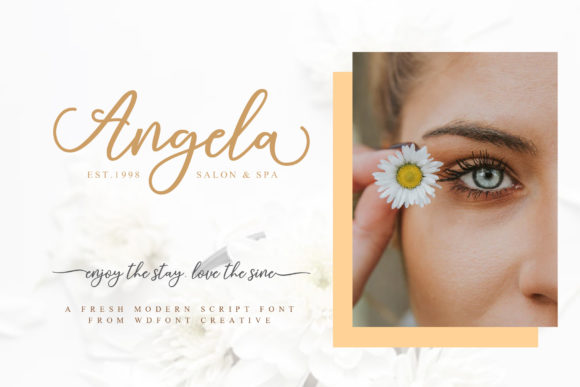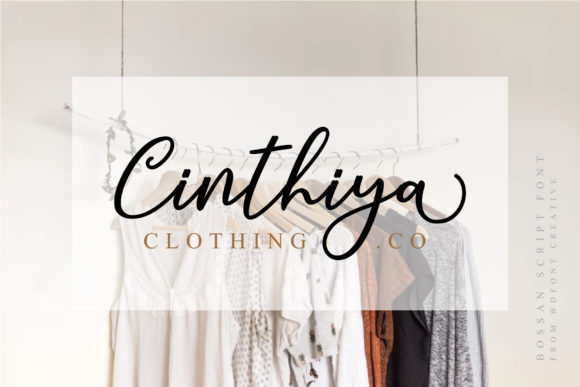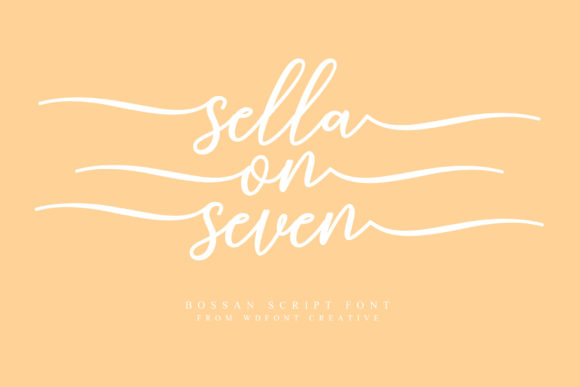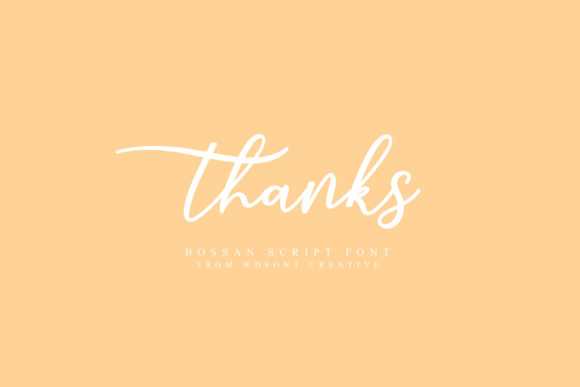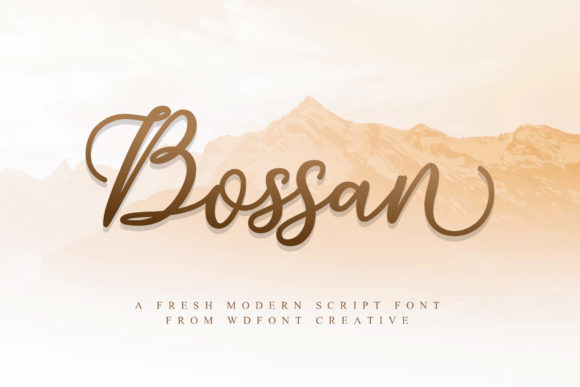
The Quest for the Perfect Personal Touch: Discovering Bossan Font
Have you ever been in the middle of a design project, everything is coming together beautifully, but then you hit a roadblock – finding the right font? I recall working on a client’s wedding invitation, wanting to add that special something to make it truly unique. That’s when I stumbled upon Bossan Font, a beautiful, modern handwritten font that instantly caught my eye. It’s been a game-changer for my designs ever since.
An Honest Review of Bossan Font
- ✨ Unique and Personal Touch: Bossan adds a distinct, personal feel to any project, making it stand out.
- ✅ Versatility: It’s suitable for a wide range of projects, from wedding invitations to branding and packaging.
- 💫 Modern and Fresh: The font’s modern look keeps designs feeling current and fresh.
- 👍 Ease of Use: Despite its unique look, Bossan is surprisingly easy to read and work with.
While Bossan is incredibly versatile, there are a few things to keep in mind:
- ⚠️ Legibility at Small Sizes: Like many script fonts, Bossan can get a bit tricky to read at very small sizes. It’s best used at larger sizes where its details can shine.
- 🤔 Pairing with Other Fonts: Due to its distinctive style, it may require some experimentation to find the perfect pairing fonts that complement it without competing.
The Story Behind Bossan Font
While the exact origins of Bossan might not be well-documented, it’s clear that it was designed with the intention of bringing a personal and unique touch to designs. The creator likely aimed to craft a font that feels both modern and approachable, perfect for designers looking to add a bit of warmth and personality to their work.
| Font Name | Bossan Font |
| Author | WDfont Creative |
Q: Is Bossan suitable for body text?
A: While Bossan is beautiful, it’s primarily designed for headlines and short paragraphs. For longer body text, a more straightforward font might be easier to read.
Q: Does Bossan support OpenType features?
A: Yes, Bossan supports various OpenType features, including stylistic alternates and glyphs, which can add more variety and creativity to your designs.